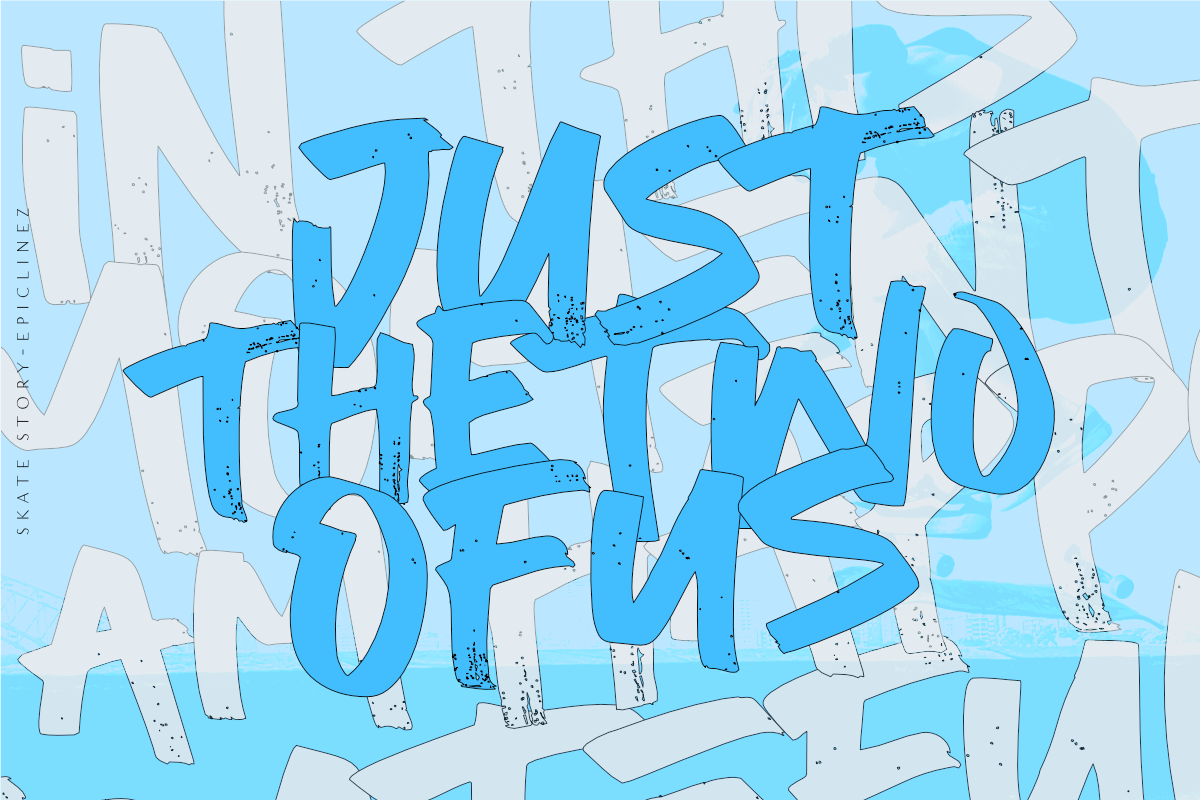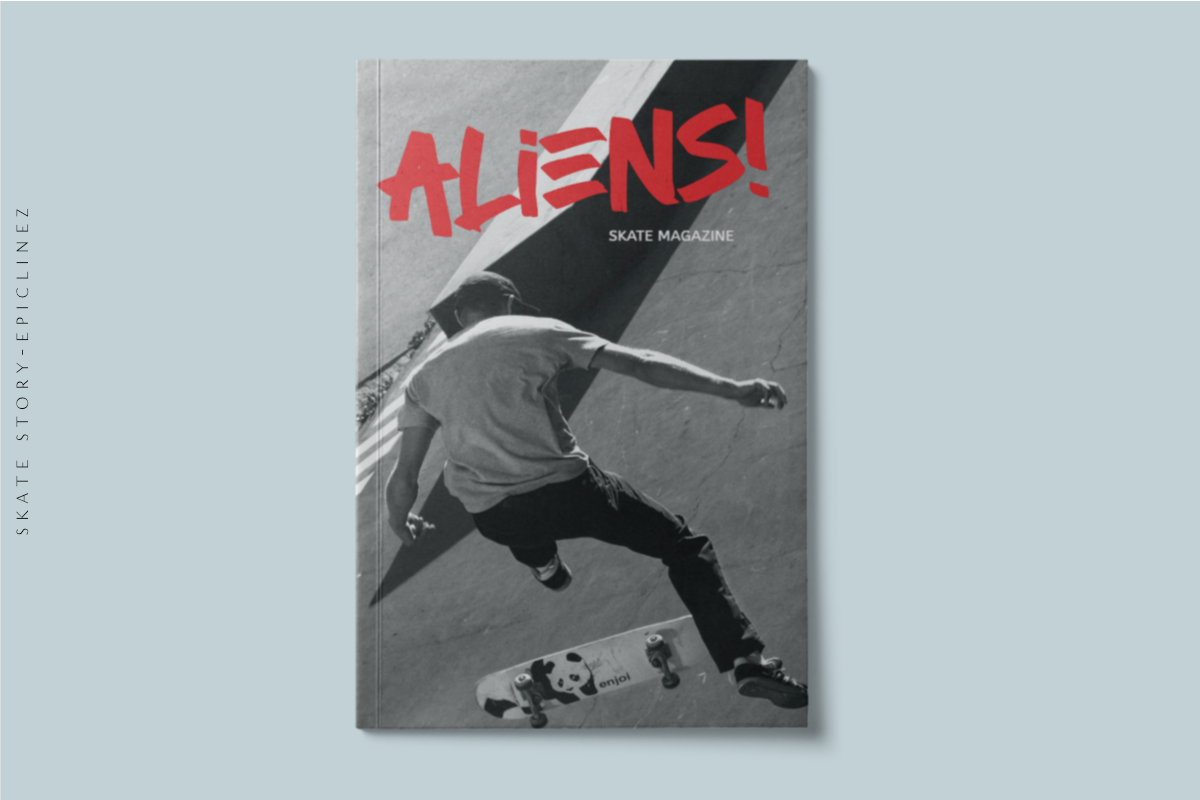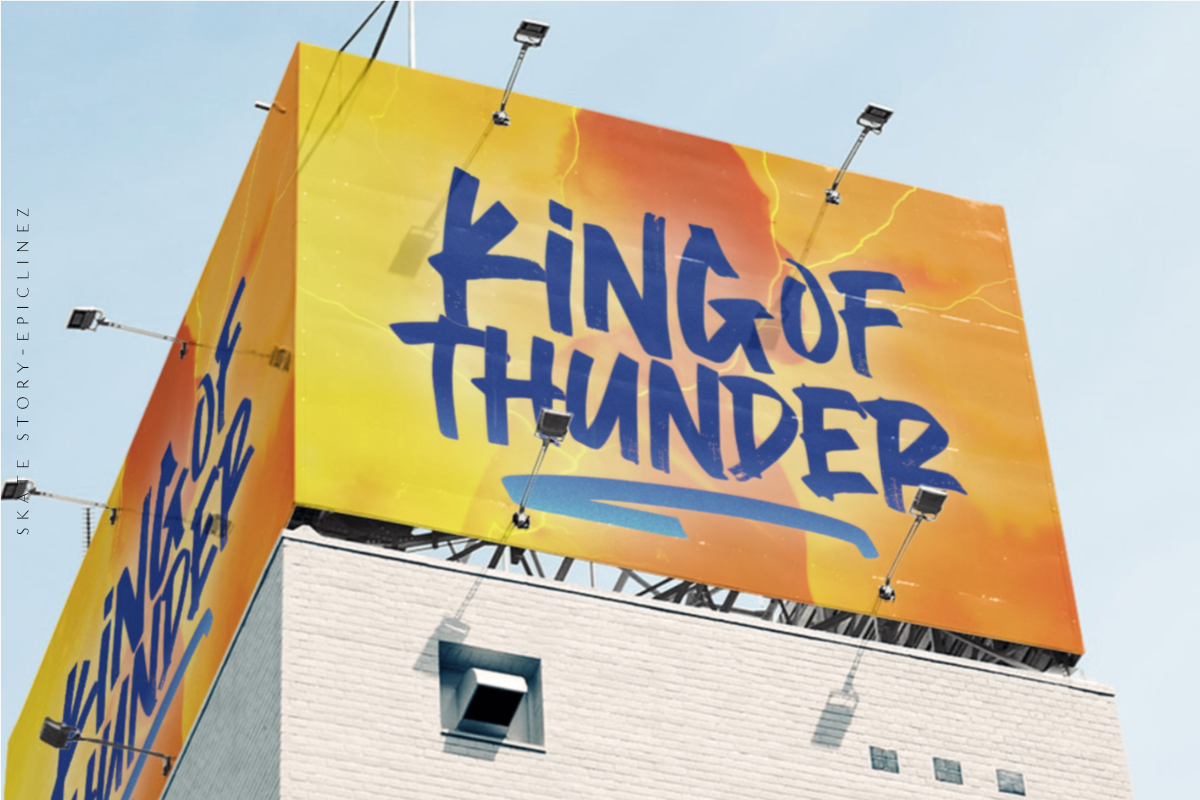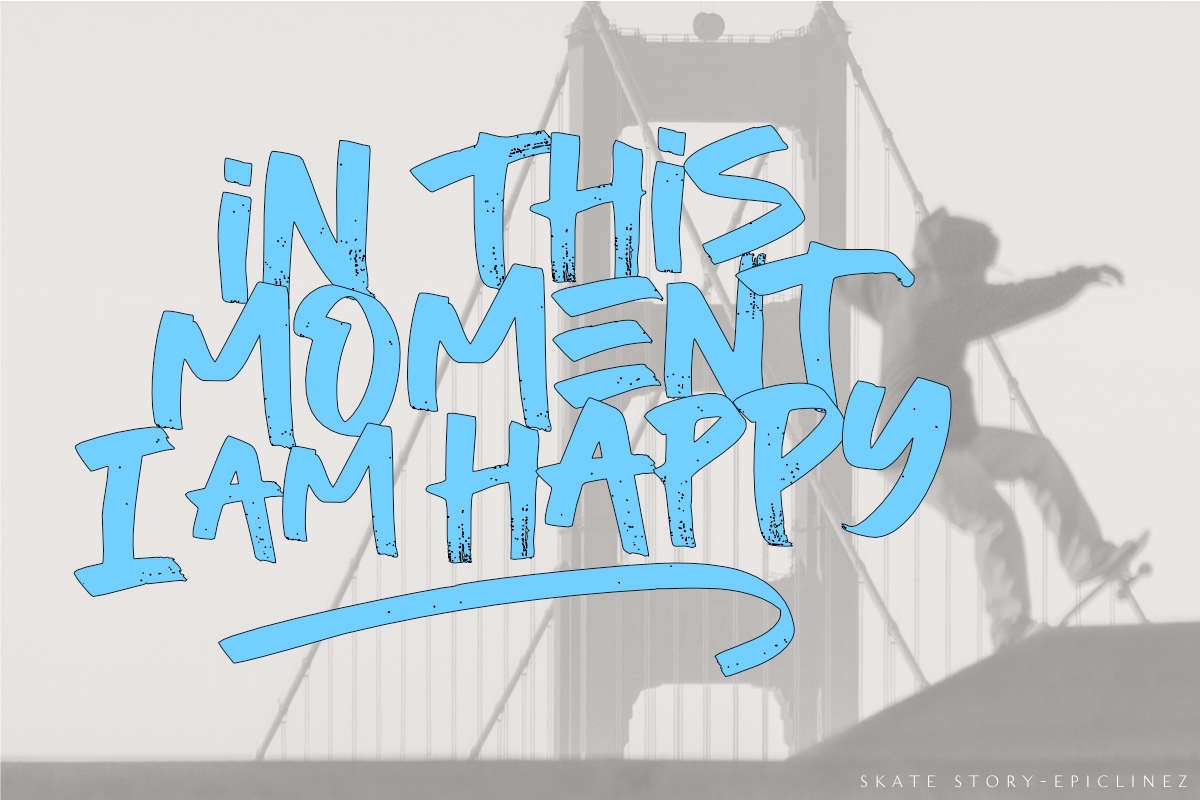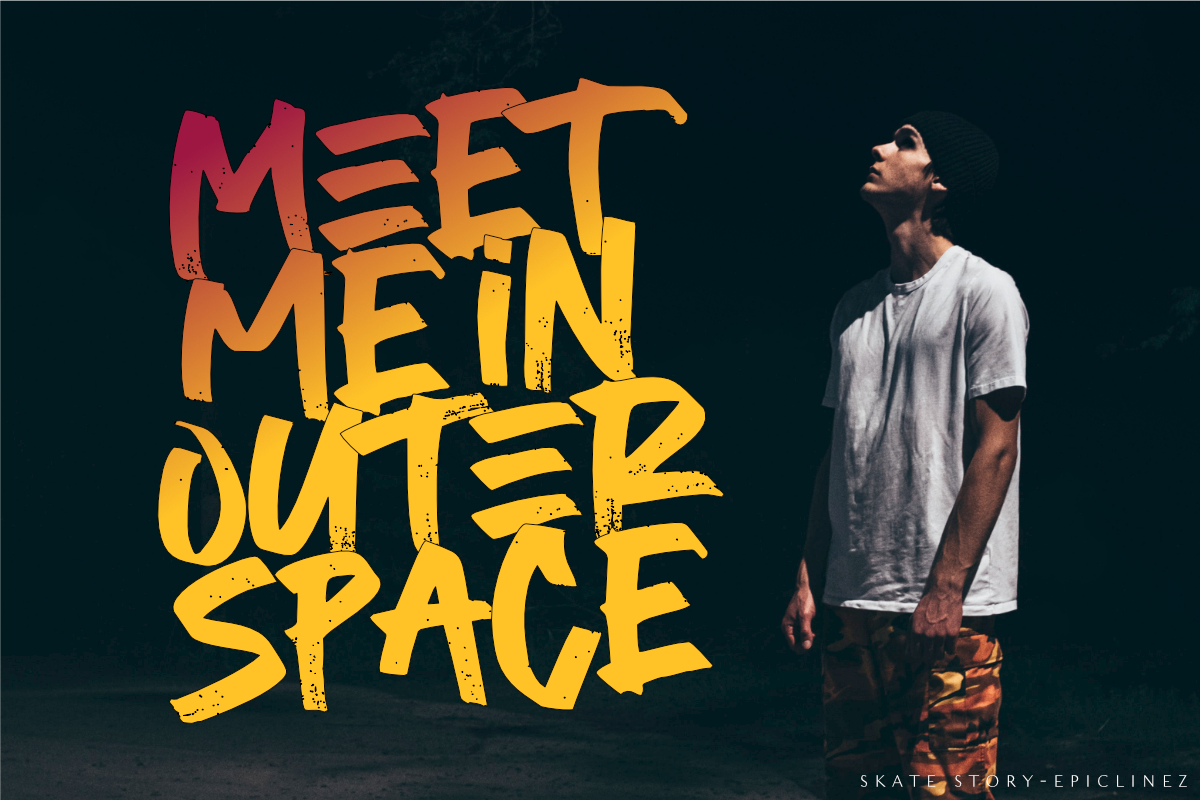
Skate Story
Skate Story is a stunning hand brush font with a graffiti-style feel. Get inspired by its unique charm, and turn any design project into a true stand-out. This brush typeface is supporting multi-Languages, which include: Afrikaans Albanian Catalan Danish Dutch English Estonian Finnish French German Italian Norwegian Portuguese Spanish Swedish Zulu.
Skate Story will look outstanding in any context, whether it’s being used on busy backgrounds or as a standalone headline!